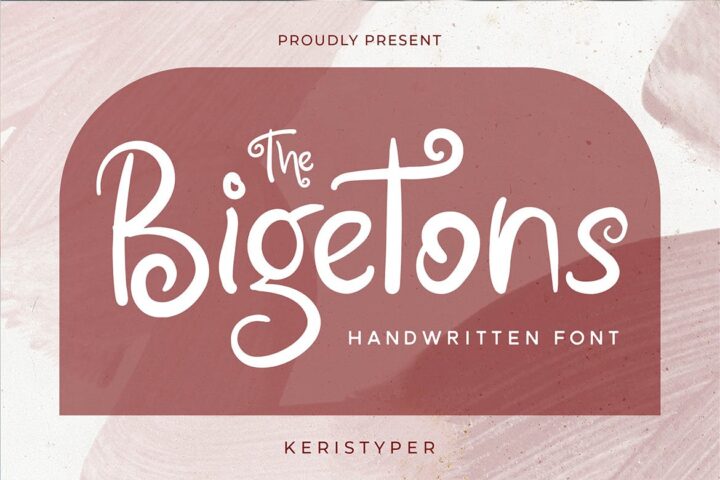
Bigetons Font
Bigetons is born from bold and fun style fonts. This font is good for logo design, Social media, Movie Titles, Books Titles, short text even long text letters, and good for your secondary text font with sans or serif.
Featured:
Standard Uppercase & Lowercase
Numeral & Punctuation
Multilingual : ä ö ü Ä Ö Ü ß ¿ ¡
Alternate & Ligature